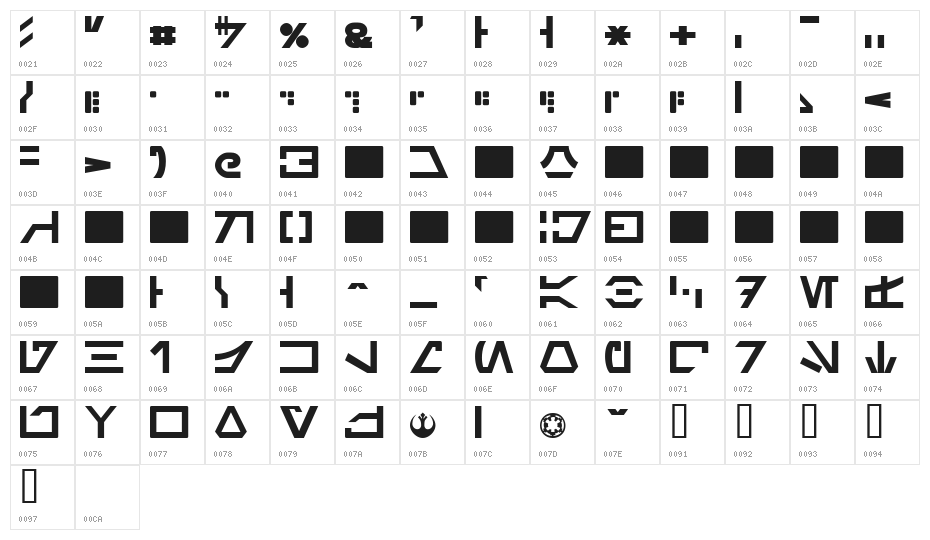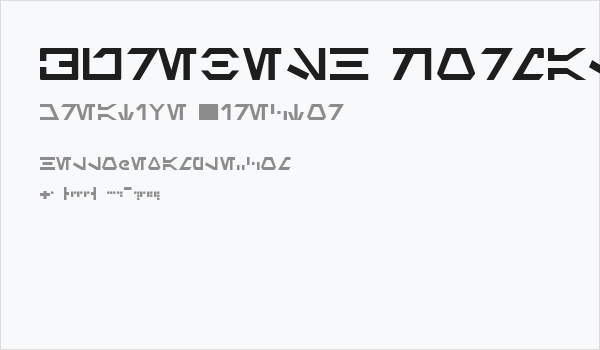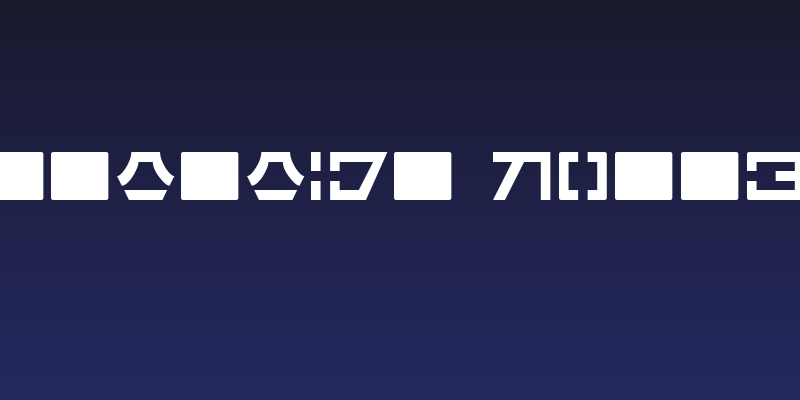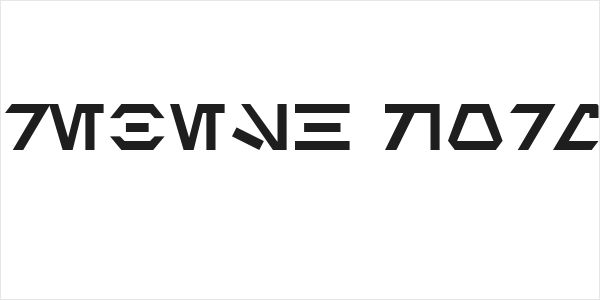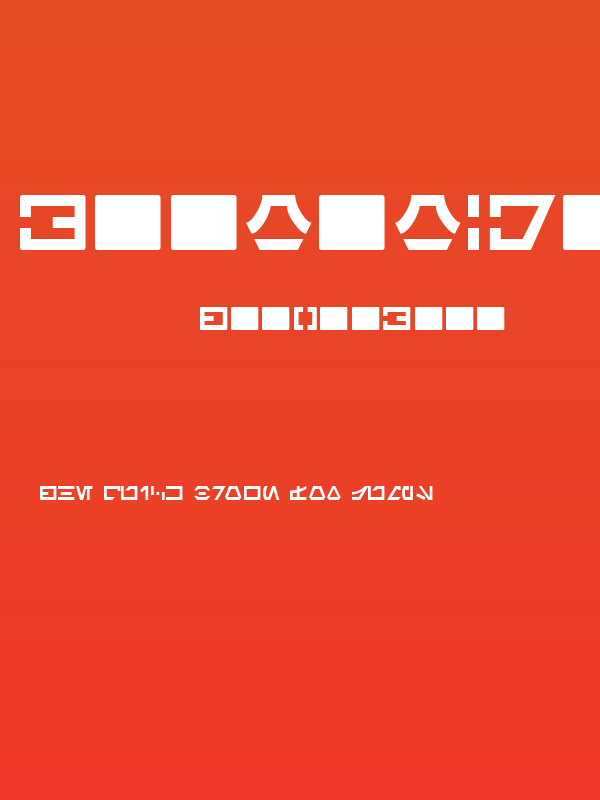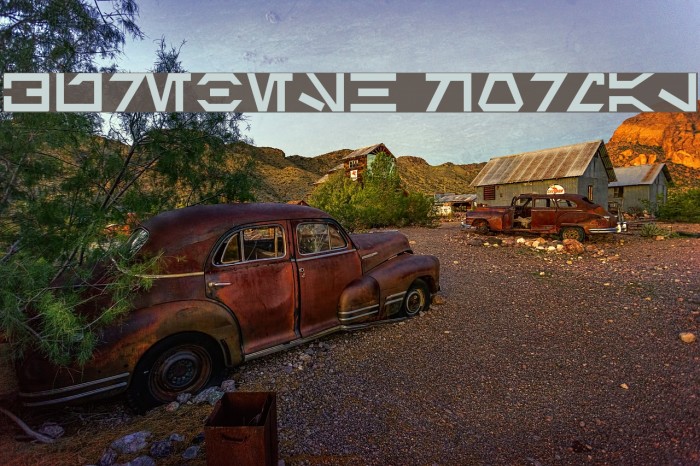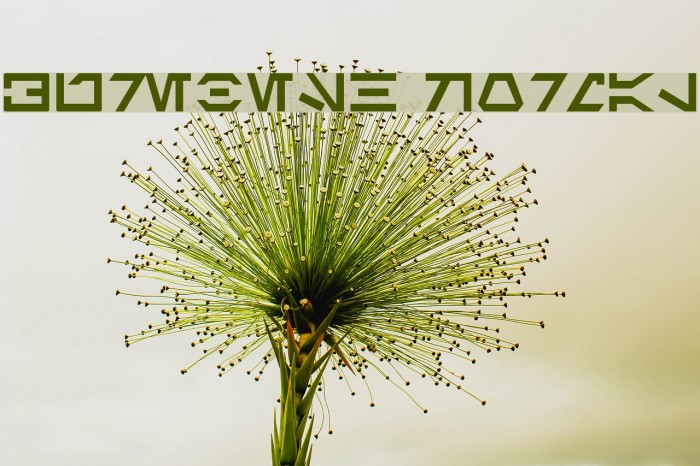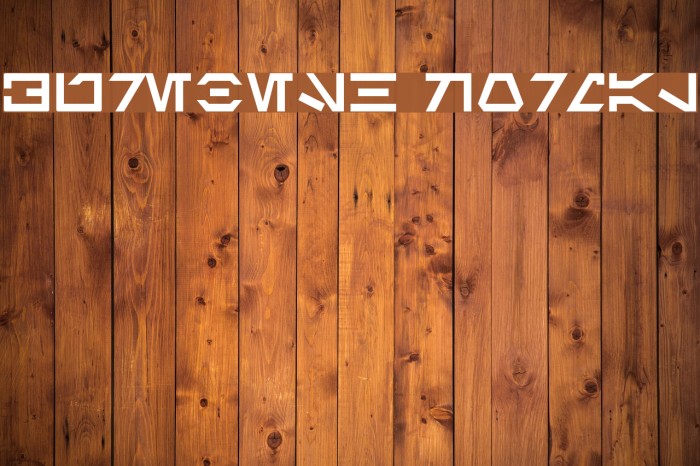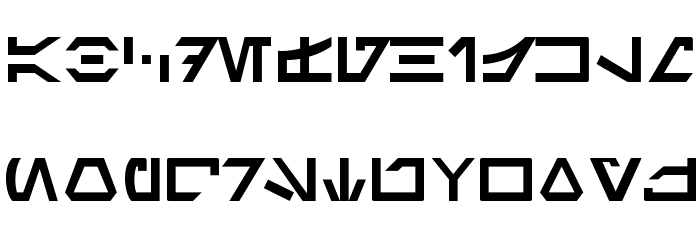
Aurebesh Normal Font
Aurebesh Normal Description
This font is a fictional writing system used in a popular science fiction universe. It features geometric shapes and angular lines, creating a futuristic and alien appearance. The characters are composed of straight lines and sharp angles, often resembling abstract symbols rather than traditional letters. This design gives it a distinct and recognizable style that is both decorative and functional within its fictional context. The font is typically used to represent an alien language, adding an immersive element to the visual storytelling of the universe it belongs to.
| Use Case | Logos, Decorative text, Themed events |
| Proposed Projects | Ideal for science fiction themed projects, game design, movie props, or any creative work requiring an alien or futuristic aesthetic. |